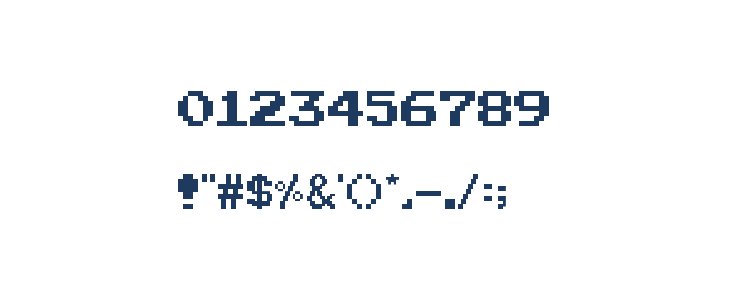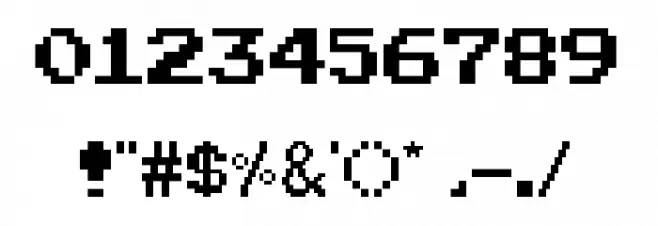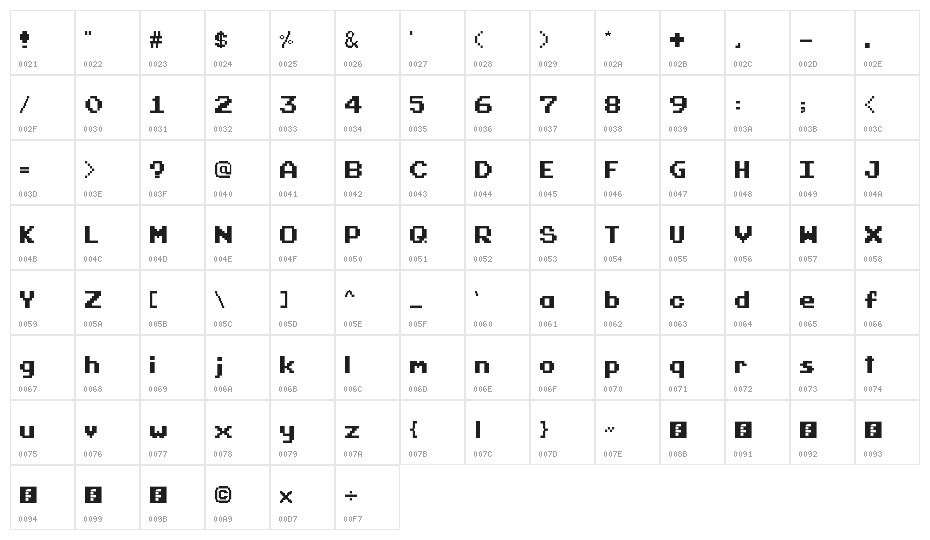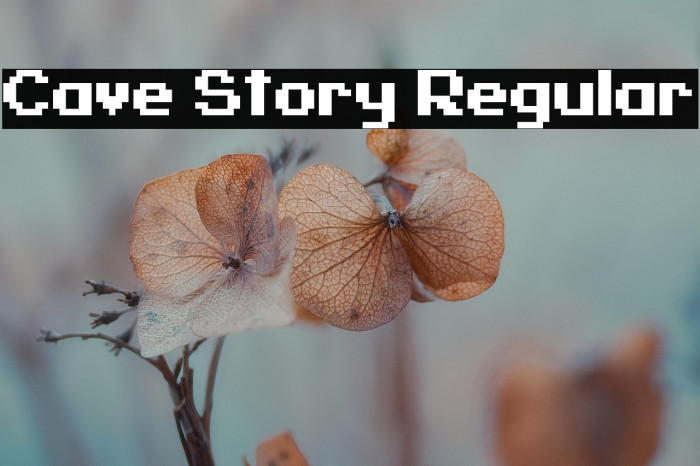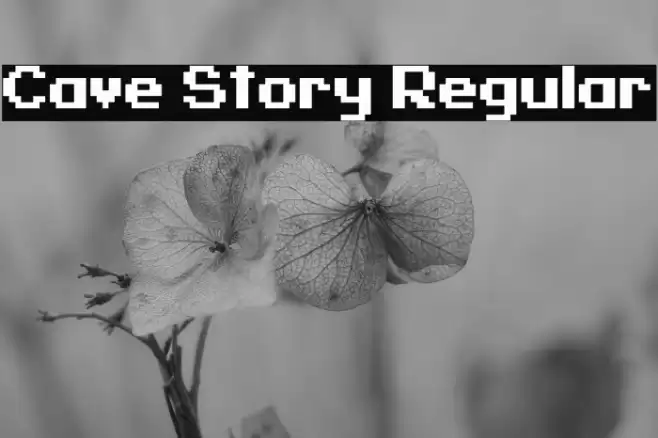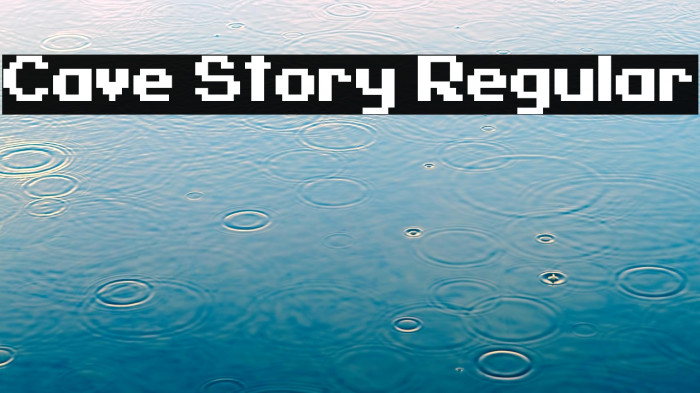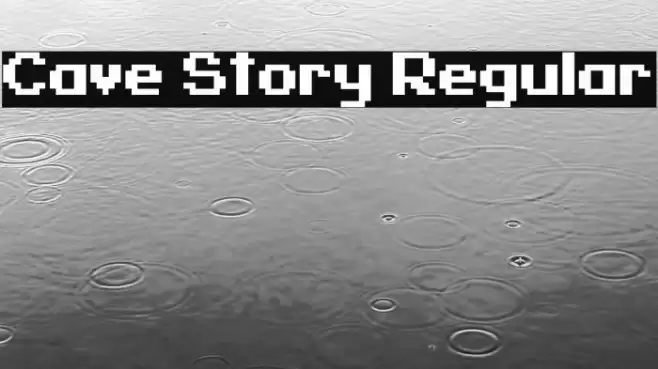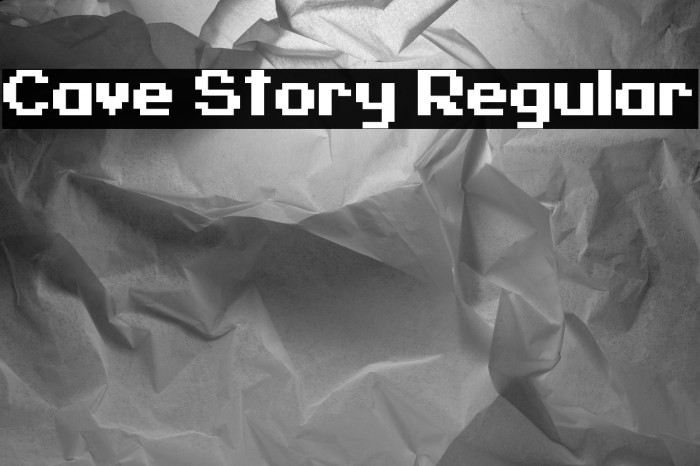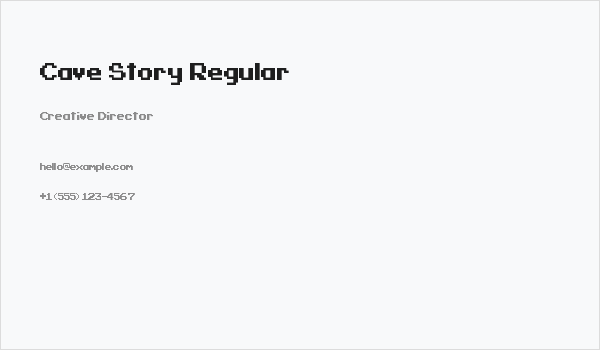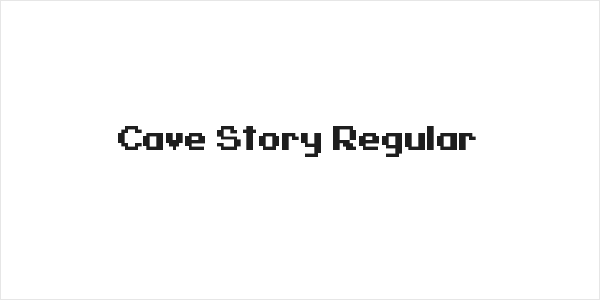
Cave Story Regular Font
Cave Story Regular Description
This font features a pixelated, blocky design reminiscent of retro video game graphics. Each character is composed of distinct square blocks, giving it a digital, nostalgic feel. The uppercase and lowercase letters maintain a consistent height, enhancing the uniformity and readability of the text. Numbers and special characters follow the same pixelated style, ensuring a cohesive look across all elements. The font's design is straightforward yet impactful, making it ideal for projects that aim to evoke a sense of nostalgia or a retro gaming atmosphere.
| Proposed Projects | Ideal for retro video game designs, digital art projects, and nostalgic-themed branding. |